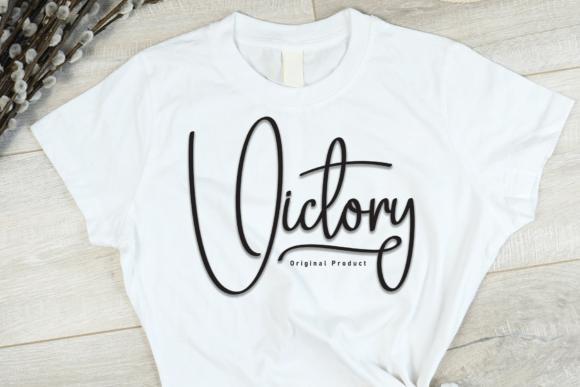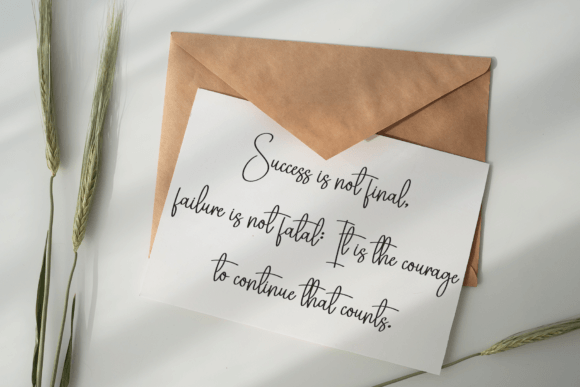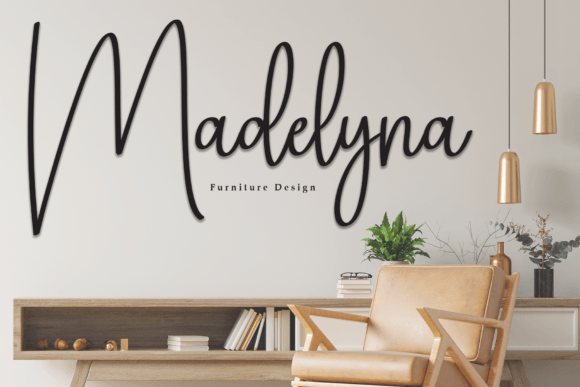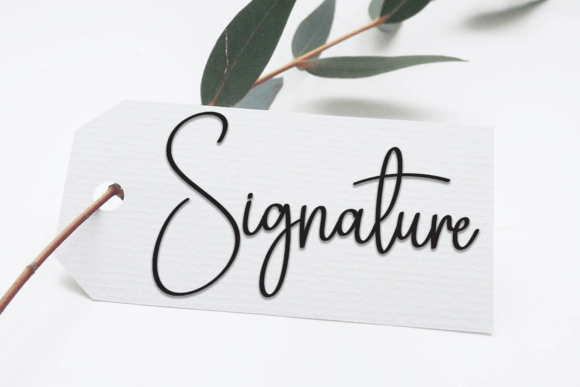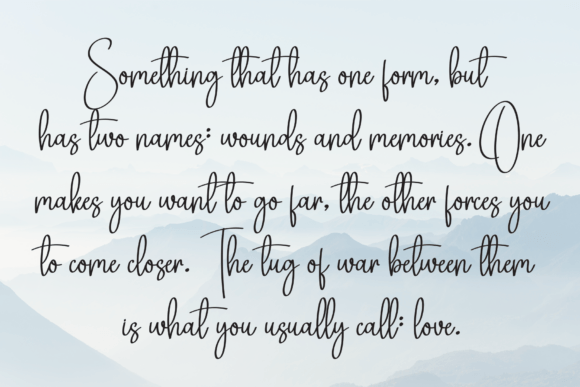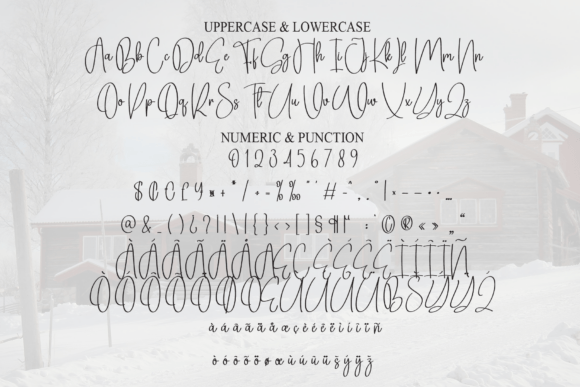
Cottage Font: The Cozy and Friendly Script Font for Your Creative Projects
Are you looking for a font that can add a touch of warmth and elegance to your designs? Look no further than Cottage Font, a charming script font that features smooth, flowing letters that resemble handwriting. With its cozy and friendly feel, Cottage Font is perfect for invitations, greeting cards, and creative designs that require a personal touch.
The Characteristics of Cottage Font
Cottage Font is a script font that boasts a unique and distinctive style. Its smooth, flowing letters are designed to look like handwriting, giving it a personal and intimate feel. The font features:
- Smooth and flowing letters that resemble handwriting
- A cozy and friendly feel that’s perfect for creative designs
- A elegant and refined style that adds a touch of sophistication to any project
- A range of characters and glyphs that allow for creative freedom and flexibility
The Benefits of Using Cottage Font
Cottage Font offers a range of benefits for designers and crafters. Some of the advantages of using Cottage Font include:
- Emotional Connection: The handwriting-like style of Cottage Font creates an emotional connection with the reader, making it perfect for invitations, greeting cards, and other personal designs.
- Elegance and Sophistication: The elegant and refined style of Cottage Font adds a touch of sophistication to any project, making it ideal for high-end designs and creative projects.
- Flexibility: Cottage Font features a range of characters and glyphs, allowing designers to experiment with different styles and creative expressions.
- Readability: The smooth and flowing letters of Cottage Font make it easy to read, even at small sizes.
Using Cottage Font in Your Designs
Cottage Font is a versatile font that can be used in a variety of designs, including:
- Invitations: Cottage Font is perfect for wedding invitations, birthday invitations, and other personal events.
- Greeting Cards: The cozy and friendly feel of Cottage Font makes it ideal for greeting cards, including Christmas cards, thank-you cards, and more.
- Creative Designs: Cottage Font can be used in a range of creative designs, including posters, flyers, and social media graphics.
Tips for Getting the Most Out of Cottage Font
To get the most out of Cottage Font, here are a few tips to keep in mind:
- Experiment with Different Sizes: Cottage Font looks great at a range of sizes, from small and delicate to large and bold.
- Play with Color: The elegant and refined style of Cottage Font pairs well with a range of colors, from soft pastels to rich jewel tones.
- Add Decorative Elements: Consider adding decorative elements, such as flourishes or graphics, to enhance the beauty of Cottage Font.
Cottage Font is a charming script font that offers a unique and distinctive style that’s perfect for creative designs. With its smooth, flowing letters and cozy and friendly feel, Cottage Font is ideal for invitations, greeting cards, and other personal designs. Whether you’re a designer or crafter, Cottage Font is a great addition to your font collection.